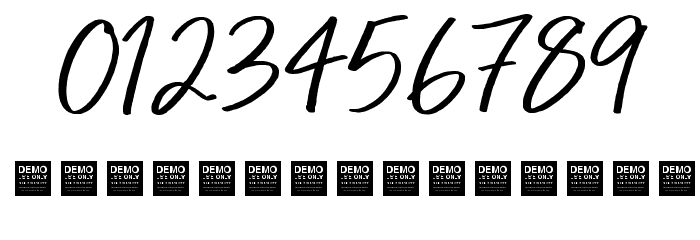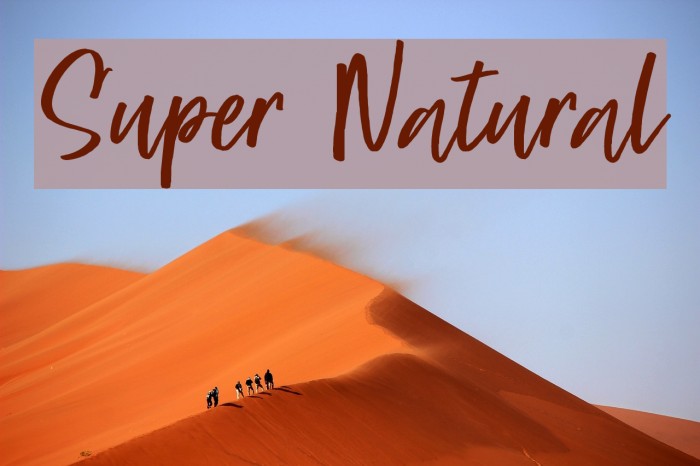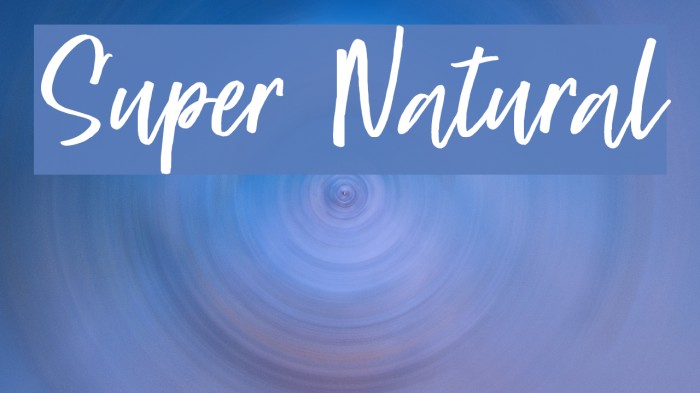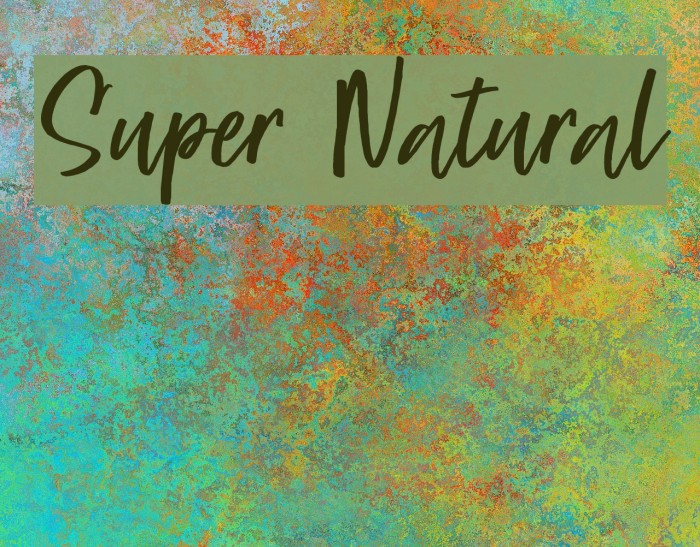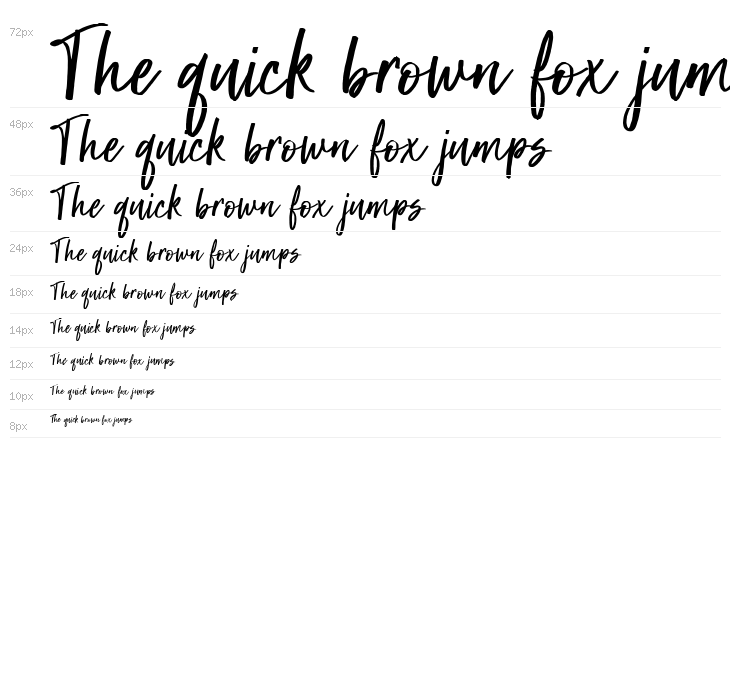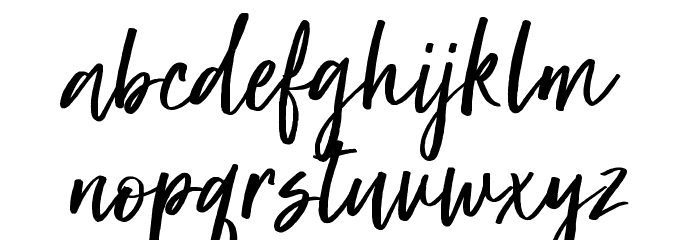
Super Natural Font
Super Natural Description
This font features a dynamic and flowing script style, characterized by its smooth, cursive strokes that mimic natural handwriting. The letters are slightly slanted, adding to the casual and informal feel. The uppercase letters are bold and prominent, while the lowercase letters maintain a consistent flow with elegant loops and curves. The numerals are clear and legible, matching the overall style of the alphabet. This font exudes a sense of creativity and personal touch, making it ideal for projects that require a humanistic and approachable aesthetic.
| Overall Style | Casual, Handwritten |
| Proposed Projects | Ideal for greeting cards, invitations, personal branding, and creative projects that require a personal touch. |